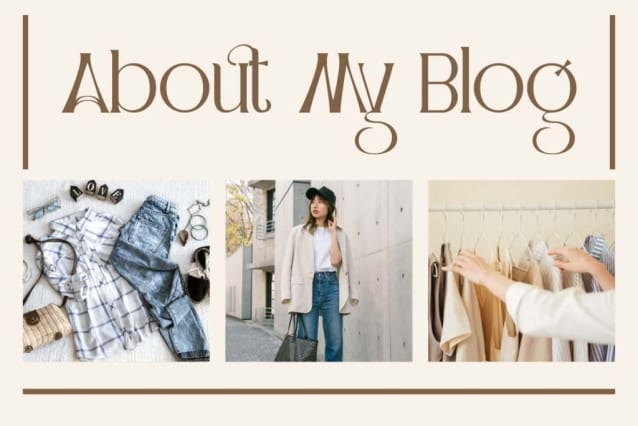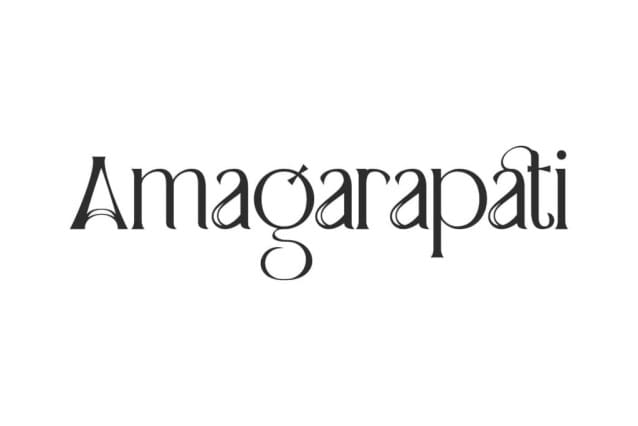
Amagarapati Font
Amagarapati Font is a vintage display font with the feel of a serif shape that is made different and unique. The custom bolted font provides the perfect blend of elegance and quirkiness. It will be suitable for enhancing your design exploration, such as banners, blogs, brochure, cards design, covers, headline, invitations, labels, stationery, title, websites, or others.
Amagarapati Font contains a complete set of basic Uppercase and Lowercase characters, Numbers, Symbols and Punctuation. This versatile typeface is designed to meet whatever your creative needs are blending retro appeal and modernity to bring a clean and distinctive look to your projects, making it perfect for artisan, authors, beauty clinic, clothing brand, cosmetic, florist, homeware, and much more.